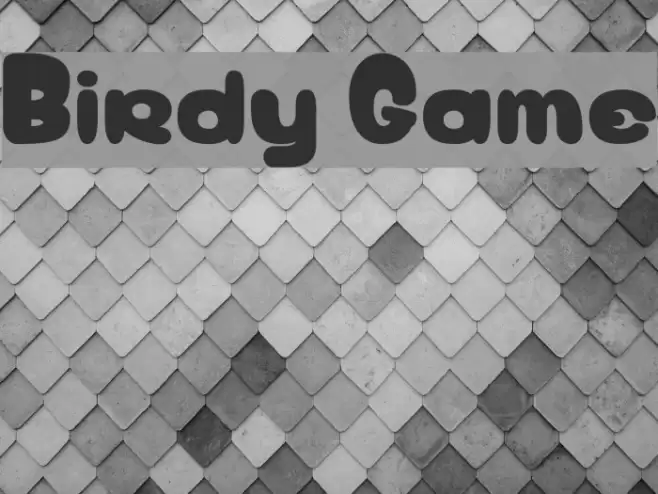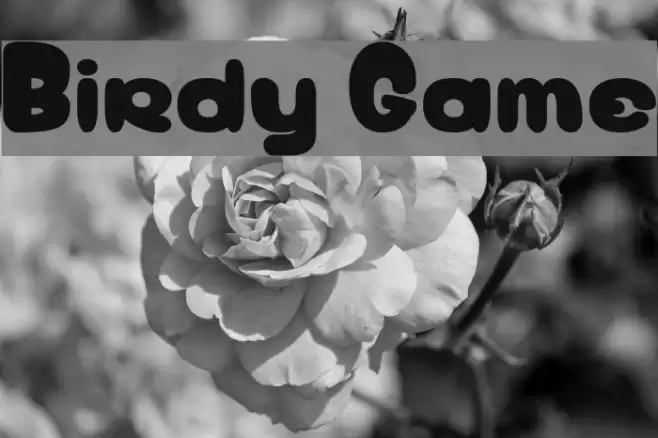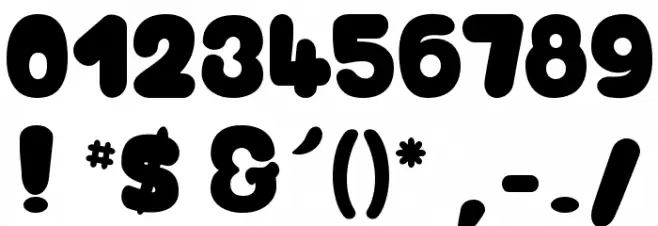
Birdy Game Font
Birdy Game Description
This playful and bold font features rounded, bubbly characters that exude a sense of fun and whimsy. The letters are thick and have a uniform stroke width, contributing to a cohesive and friendly appearance. The uppercase and lowercase letters maintain a consistent style, with the lowercase being slightly more compact. Numbers and special characters follow the same design principles, ensuring a harmonious look across all glyphs. This font is ideal for projects that aim to convey a lighthearted and approachable tone.
A playful, bold font with rounded, bubbly characters perfect for fun designs from Uncategorized fonts.
- Proposed Projects: Ideal for children's books, playful branding, game design, and party invitations.
- Overall Style: Playful